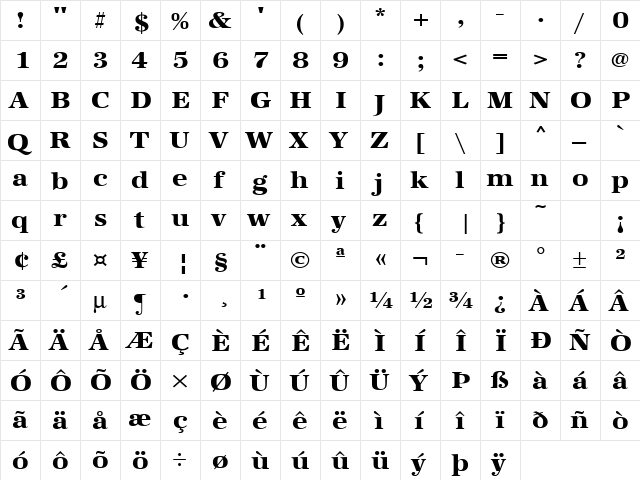
URWAntiquaTExtBolExtWid Regular Font Preview
URWAntiquaTExtBolExtWid Regular
URWAntiquaTExtBolExtWid Regular Font Details
Design Context for URWAntiquaTExtBolExtWid Typeface
URWAntiquaTExtBolExtWid is a composed and adaptable typeface that performs quietly and consistently across a wide range of design contexts.